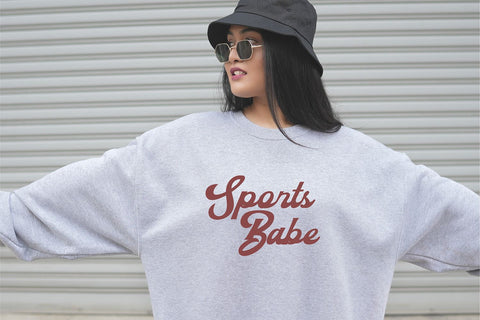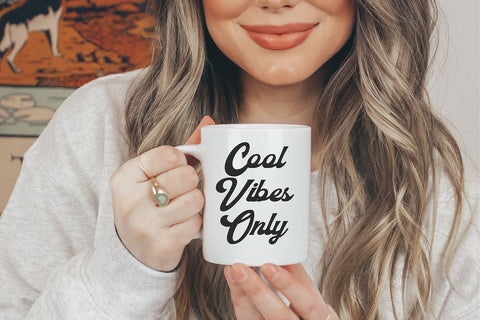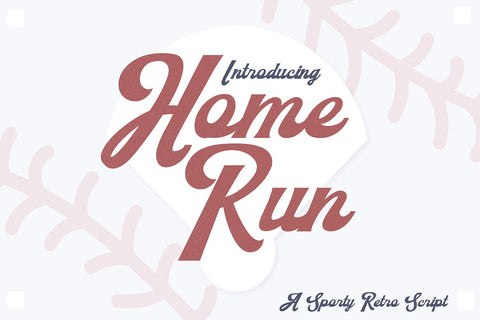
Home Run Retro Sports Script
"Home Run" a bold script sporty font.
Font includes: Upper and lowercase glyphs, numbers, basic punctuation, and intl characters.